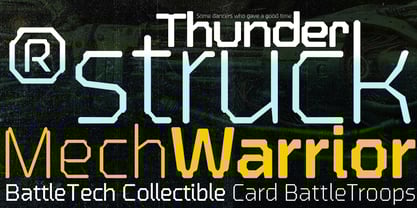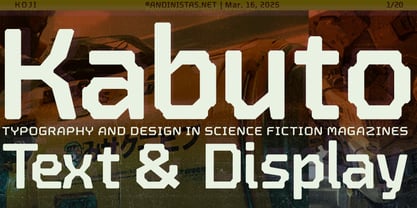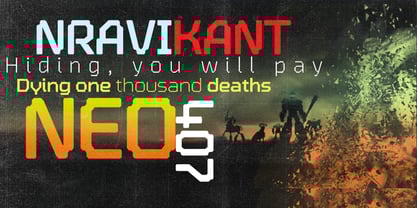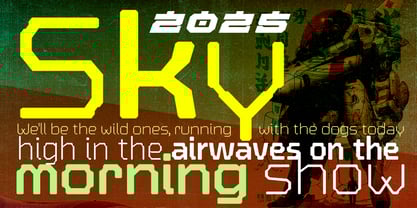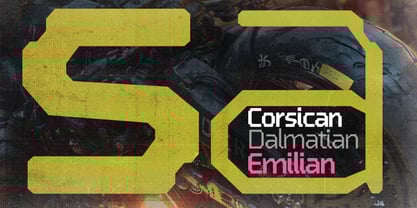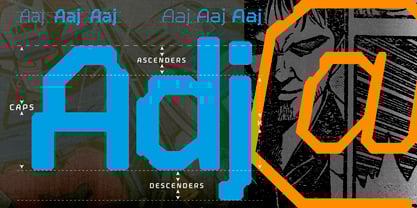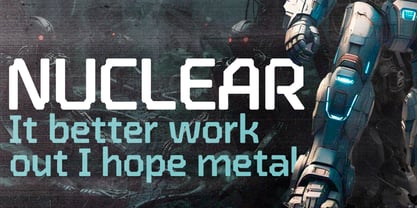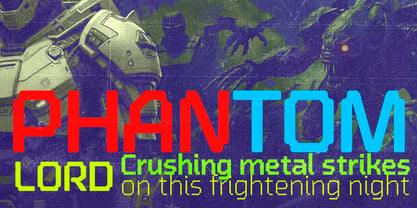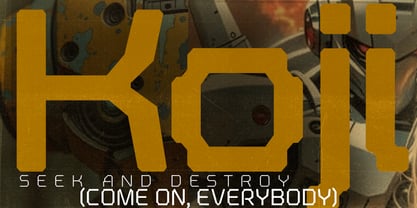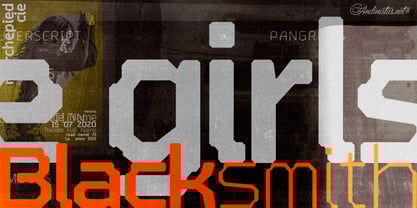
Koji
by Andinistas
The Koji Font Family was designed by Carlos Fabián Camargo Guerrero and published by Andinistas. Koji contains 6 styles and family package options.
The Koji Typeface Family debuts in 2025, designed by #carlosfabiancg @andinistas under the artistic direction of @jordi.teres. Its original concept was tied to a 2022 commission for Marchepied, the renowned contemporary dance company based in Lausanne, Switzerland.
The earliest sketches date back to 1999 and were first published in 2006 as the Nikona Font Family. The idea originated from tracing references found in books at the library of my first job as an art director at McCann Erickson, Caracas. There, working on an iMac G3, I began combining influences from The Designers Republic, Maniackers Design(マニアッカーズ デザイン | mksd)は群馬県高崎市を拠点に, 2Advanced Studios, and films like Minority Report. Fortunately, I gathered multiple bright and meaningful starting points, which were essential in shaping Koji’s retro-futuristic style—rooted in the typographic logic of Wim Crouwel and his modular grid system of horizontal and vertical fills and spaces.
Koji is a type family organized into two groups. The first includes weights designed for short paragraphs that require Light, Regular, and Bold styles. The second, called WIDE, features three weights labeled 200, 400, and 800. Both groups are characterized by expressive letterforms with subtle contrast between thick and thin strokes, lending them a robotic feel. The lowercase letters have shorter ascenders and descenders than the x-height, resulting in a compact vertical texture when compared to the proportions of the uppercase characters. Angular forms and hexagonal corners—reminiscent of typefaces like MICR and OCR-B—evoke the retro-digital aesthetic of dot matrix printers. Koji is ideal for film credits or visual environments inspired by Blade Runner, as well as science fiction projects influenced by Asimov, manga, or the visual world of comics and specialty toy shops dedicated to Japanese mecha anime robots.
About Andinistas
The word "Andinistas" roughly translates to "people devoted to the Andes." In Venezuela, it is the word used to describe the people who climb the slopes of Pico Bolívar, the country's highest mountain. Carlos Fabián Camargo Guerrero, the founder of Andinistas Fonts, found this name to be interesting because of its resonance and relationship with the unknown.Carlos is one of the first designers from Colombia or Venezuela to be able to make it as a full-time type designer. His experience of living in both countries has allowed him to tap into their colorful visual cultures and bring aspects of each of them into his designs. He is proud of both countries, as they have been an inexhaustible source of ideas to him.Carlos joined MyFonts in 2006. Since then, his designs have evolved from a streetwise, sassy grunge style to a series of energetic and personable scripts and display fonts. He says that in typeface design, we can never say we have learned enough. When we look at old classics, we realize that what we need to learn is inexhaustible. We never get anything definitively.Today, Carlos feels that the word "Andinistas" also has a valuable meaning for him personally. It has taken many years of experience before he slowly received some recognition for his foundry. This has required profound conviction and the will to surpass oneself. So the word combines concepts like spectacular beauty and adventure with the idea of overcoming challenges and getting to the top with work and creative effort.